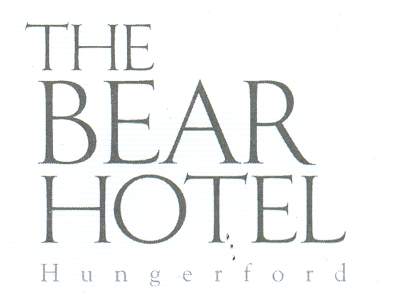
Gah! Anyone know what this font is?
Posted by Gwaredd Steele on 23 May 2007 at 09:34Looked like a garramond of some kind to me, but none of mine have that flare on the bottom of the ‘E’ & ‘L’
Anyone help?
Hi all. Still no joy with this & the signs need to be up next week. I’m truly stumped. It looks like a cross between Garamond (the ‘T’) & Goudy (the curves on the base of the ‘E’ & ‘L’) but I’m sure it’s a proper font.
Any font geniuses out there?
It looks like loads of fonts but matches none exactly, none that I have checked anyway. With a bit of squashing and kerning it could be Trajan.
I agree Andy. It’s a puzzler! It’s definitely not Goudy old style as the ‘T’ is wrong & the serifs aren’t ‘sharp’ enough. Cheers anyway 😀
Think I’m going to have to get my node toolbox out & make it up as I go along 😕
🙁 ………… I can’t find a perfect match. It’s like so many fonts but when you look closely there are differences.
It’s similar to Arthur Vanson’s Essendine by Letterhead Fonts.
I’ve not managed to locate the original font (I’m sure it’s out there) but by using a combination of Venetian, Goudy & Garamond, & a whole morning of pulling nodes around, I’ve cracked it.
quote Chris Windebank:a bit late i know, possibly trajan pro, mac font
Ooh, good shout. The closest so far. You win a virtual Mars bar 😀